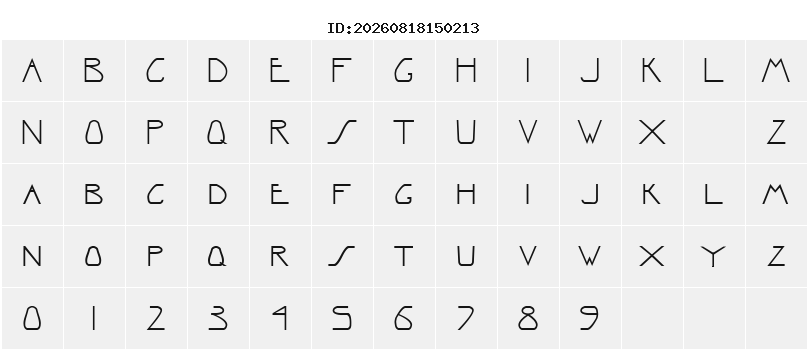
• Font Name: Slither
• Full Font Name: Slither
• PostScript Name: Slither
About Slither.ttf
Slither.ttf is a modern, elegant sans-serif font designed for ultimate readability and visual harmony. Perfect for branding, headlines, web design, and print materials.